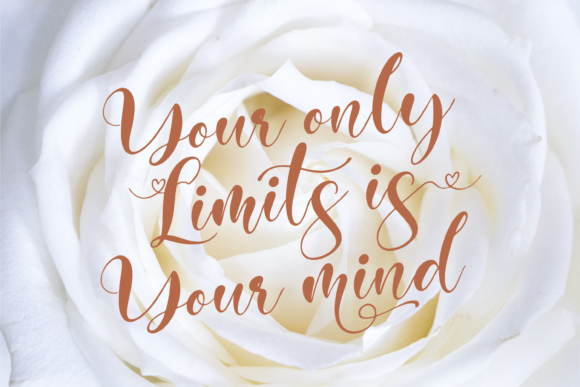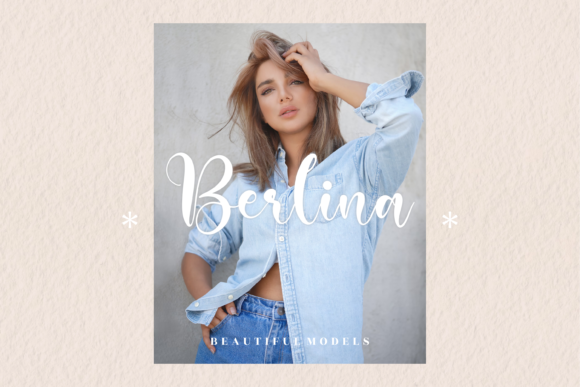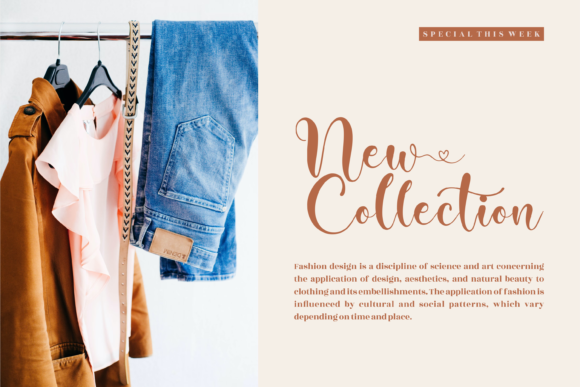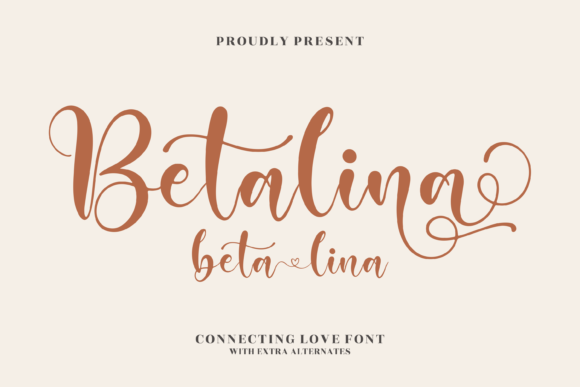
Introduction to Betalina Font
Betalina is a romantic and sweet calligraphy typeface with characters that dance along the baseline.
It will add a luxury spark to any design project that you wish to create This font is PUA encoded which means you can access all of the amazing glyphs and ligatures with ease.